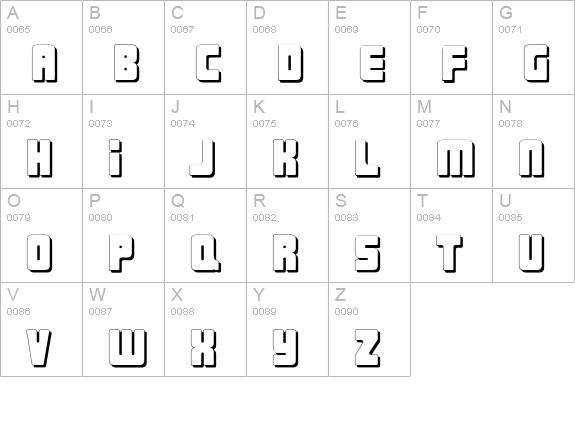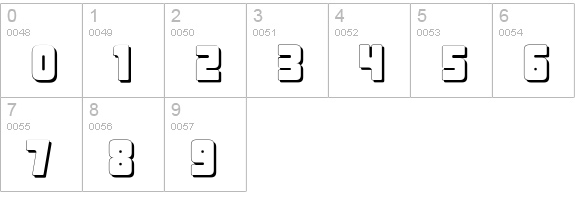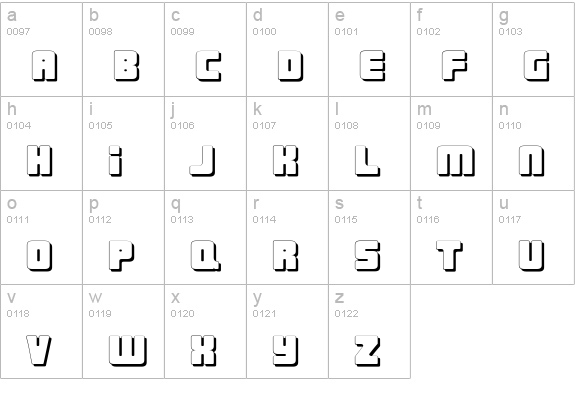
Urban Constructed Shadow font is a modern and edgy typeface that combines urban aesthetics with a touch of sophistication. Its bold and distinctive design makes it perfect for various design projects, from posters to branding materials. The shadow effect adds depth and dimension to the letters, giving them a unique and eye-catching look. What makes Urban Constructed Shadow font even more appealing is that it is available for free download at FontsMarket.com. This means that you can easily access this stylish font and use it in your projects without any cost. Whether you're a designer looking to add a contemporary twist to your work or a creative individual wanting to make a statement with your typography, Urban Constructed Shadow font is a versatile and accessible choice. Download it today and unleash your creativity with this striking typeface.